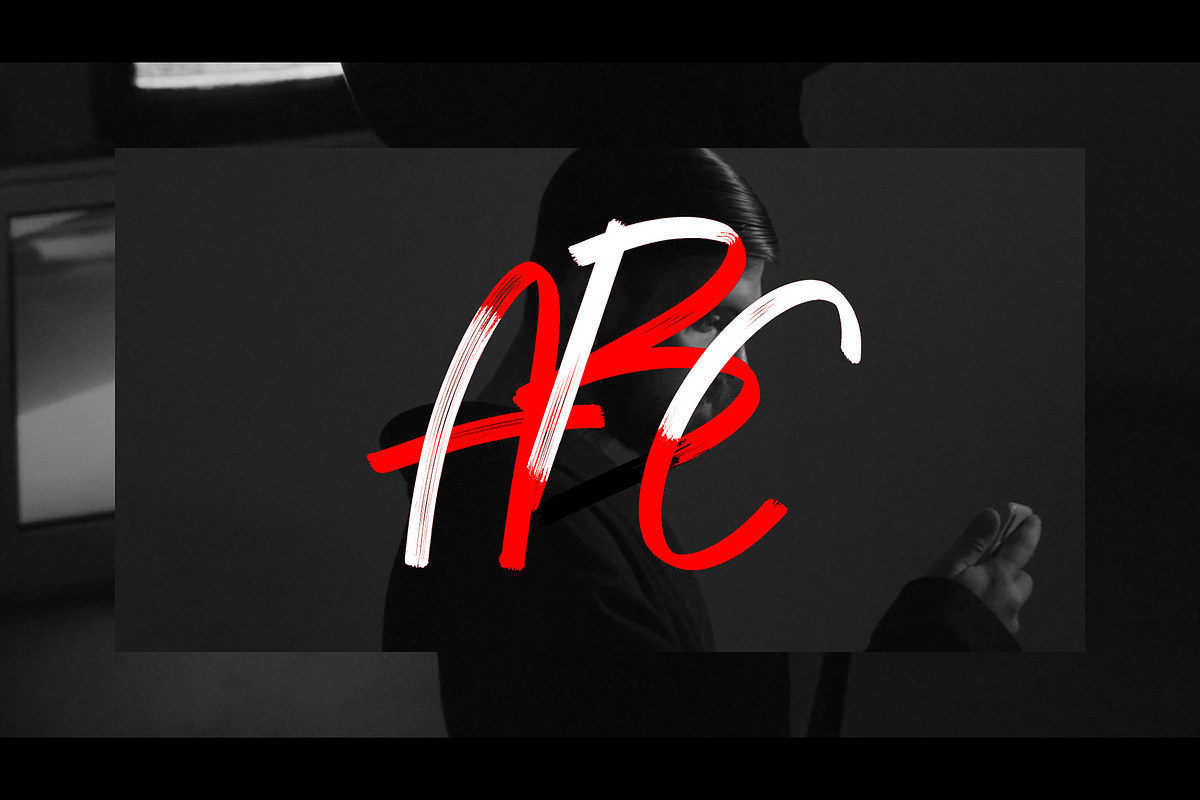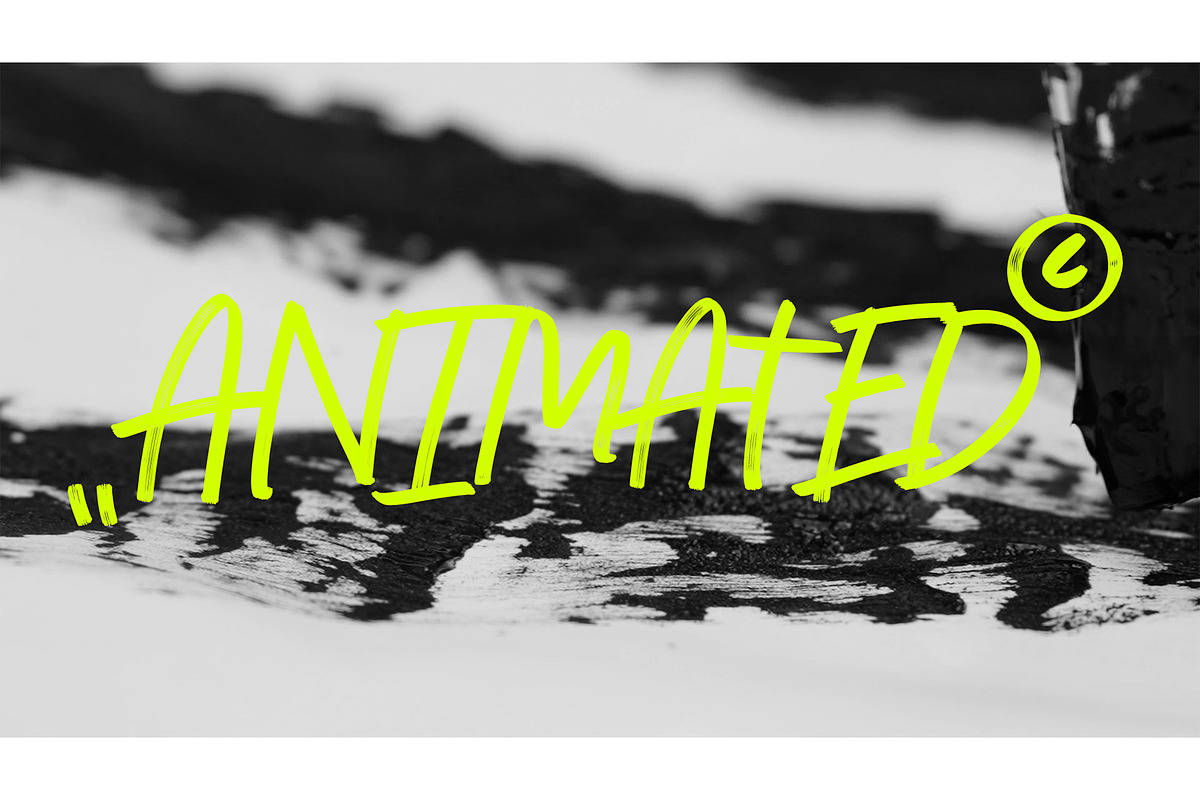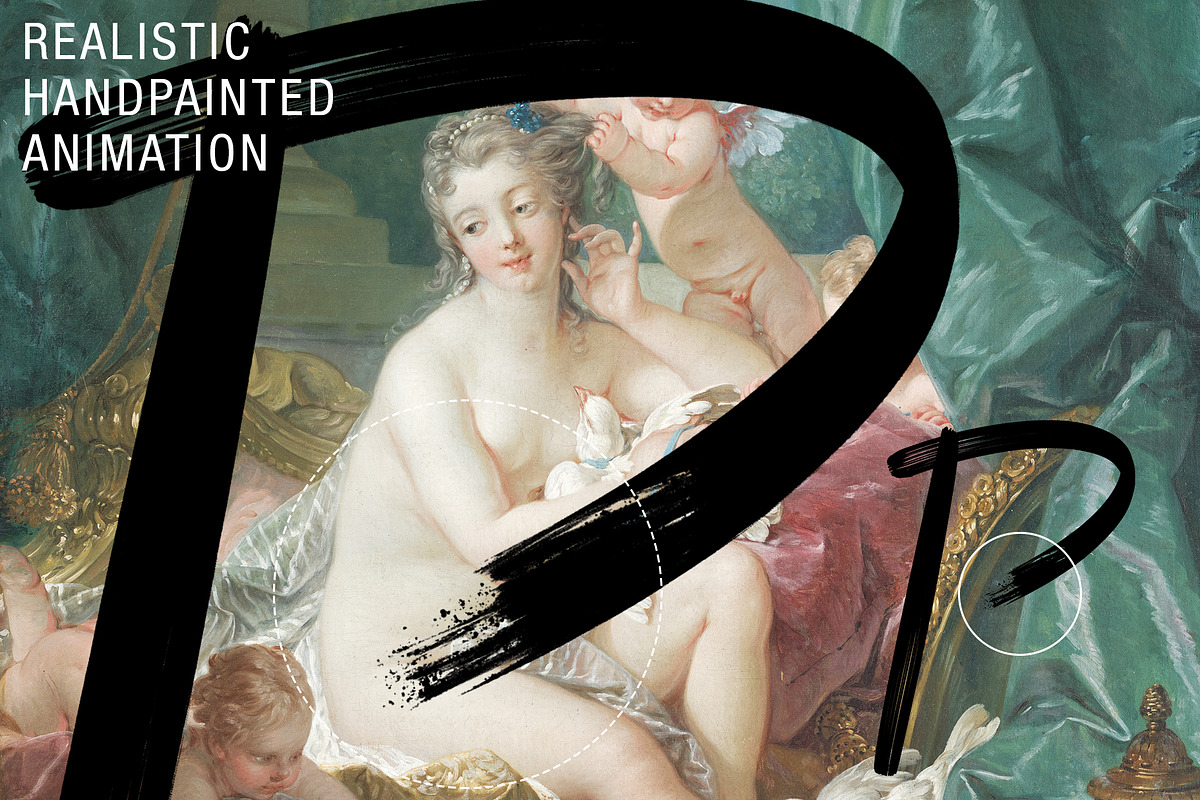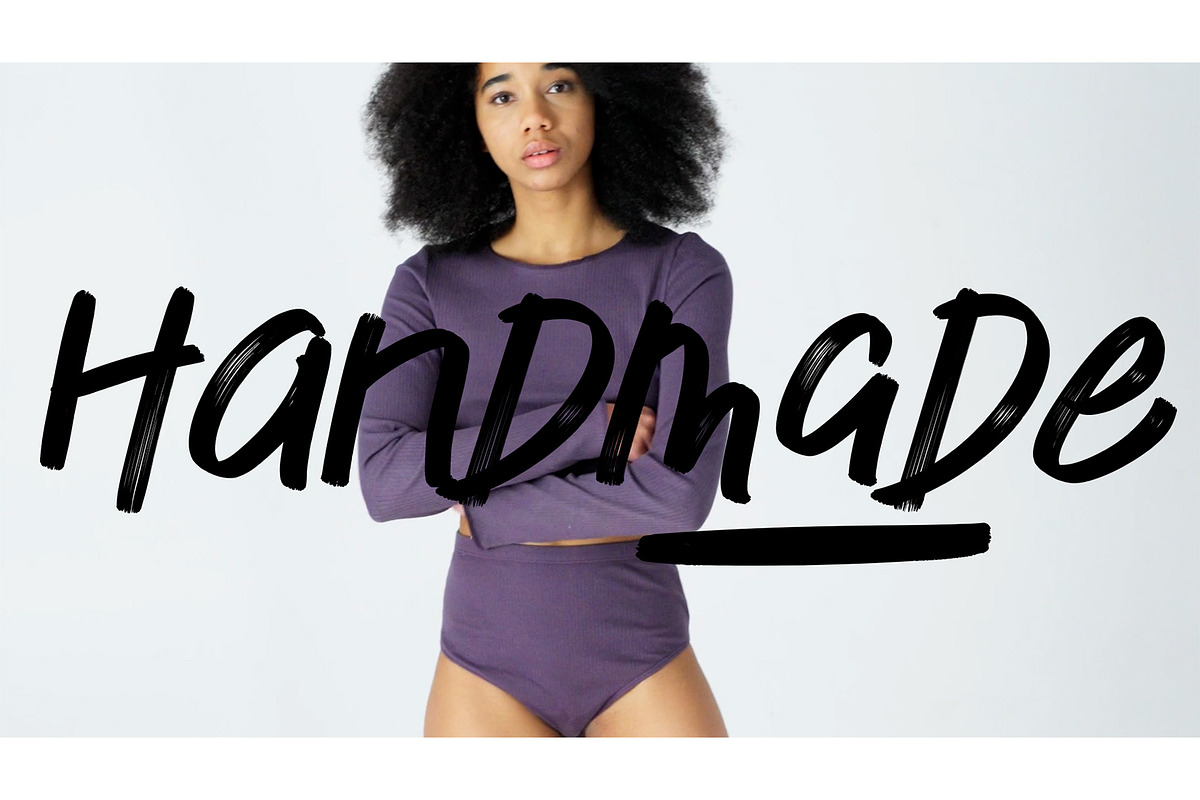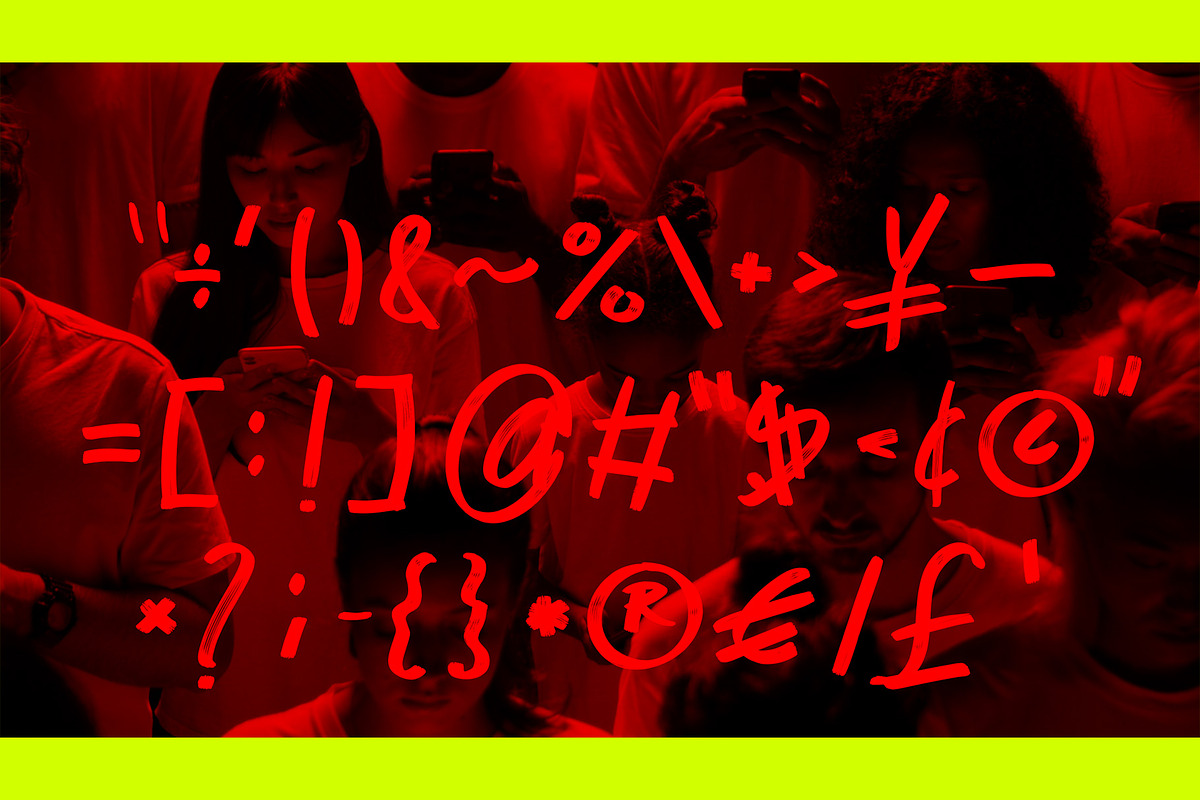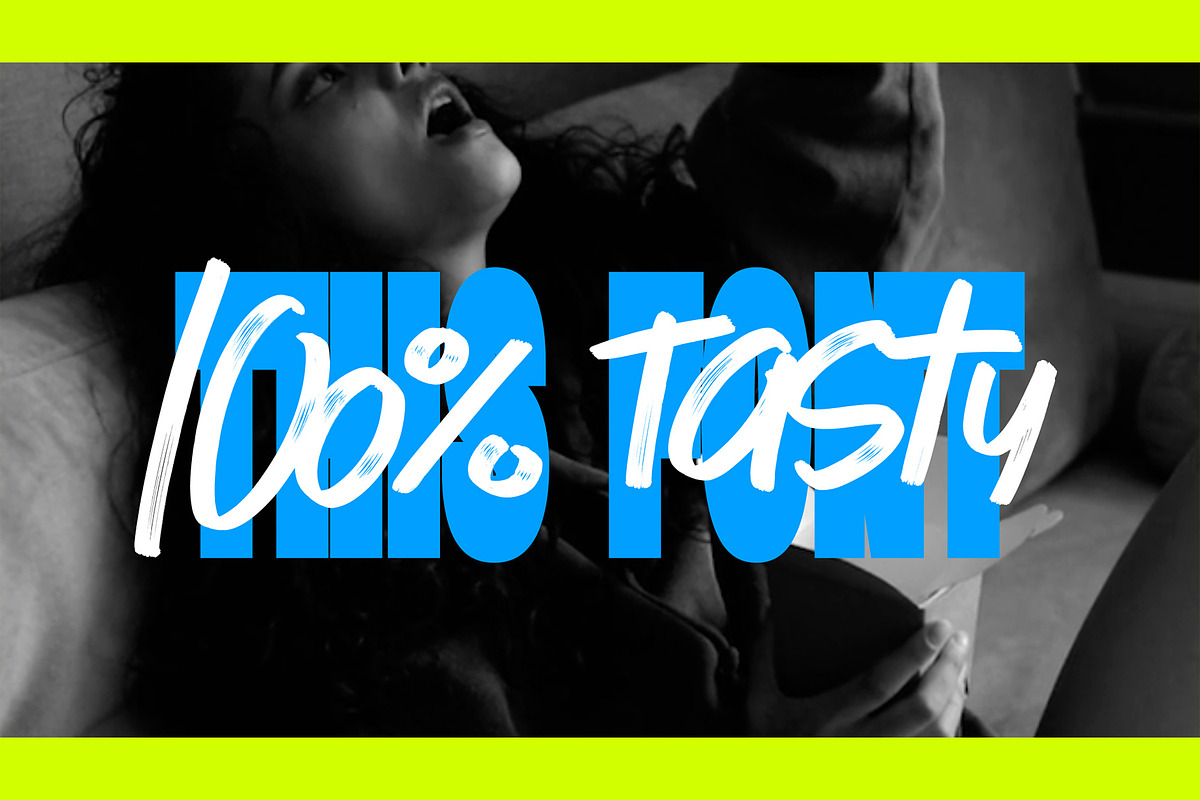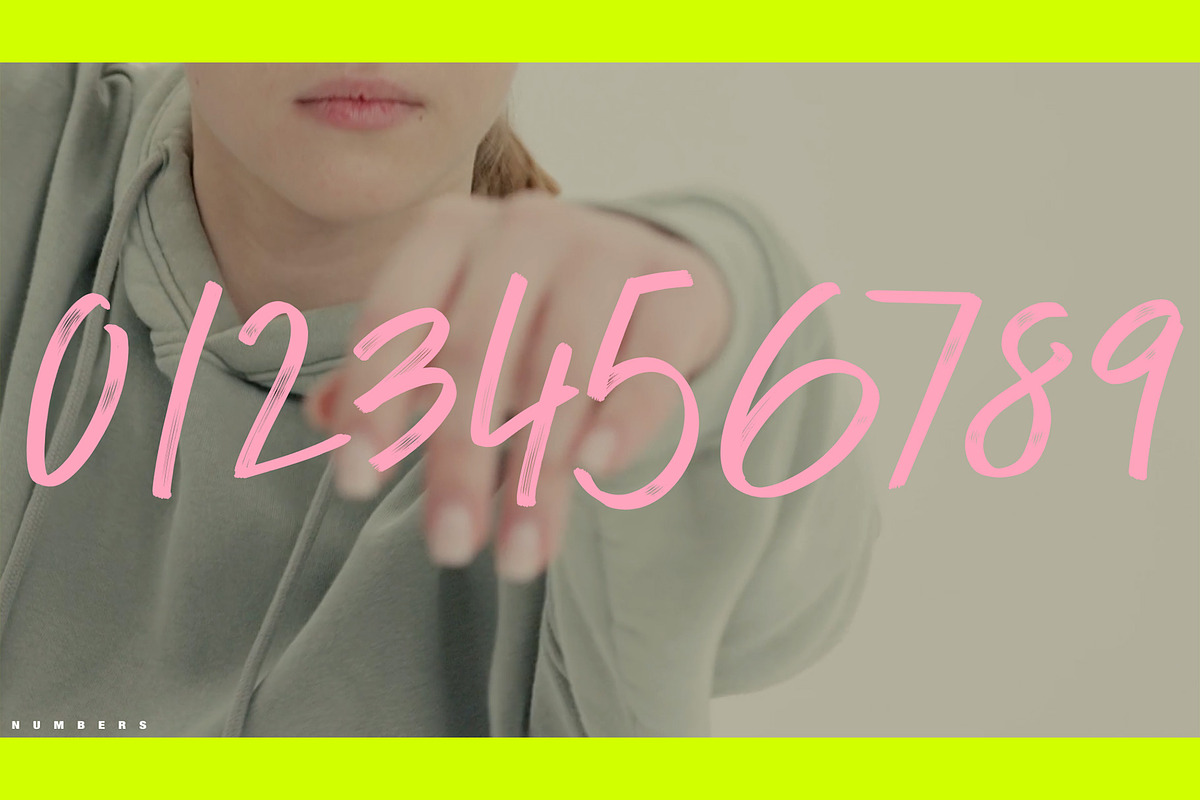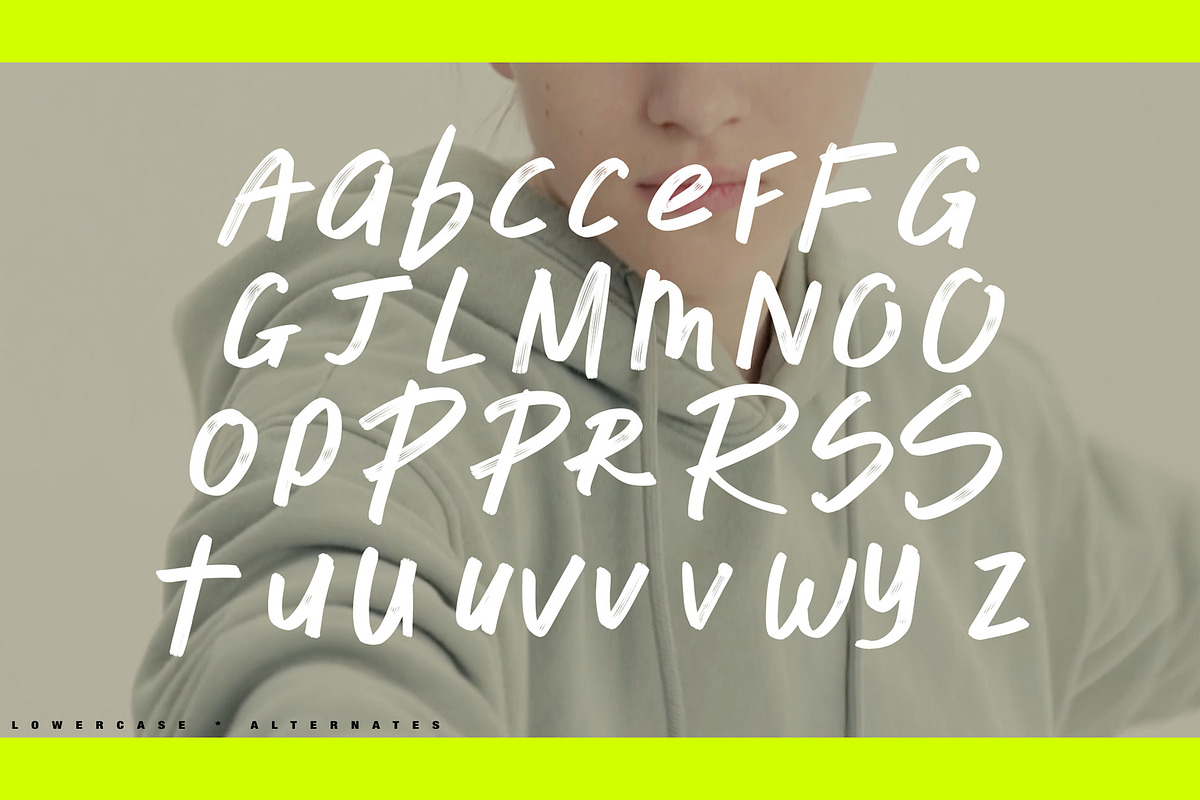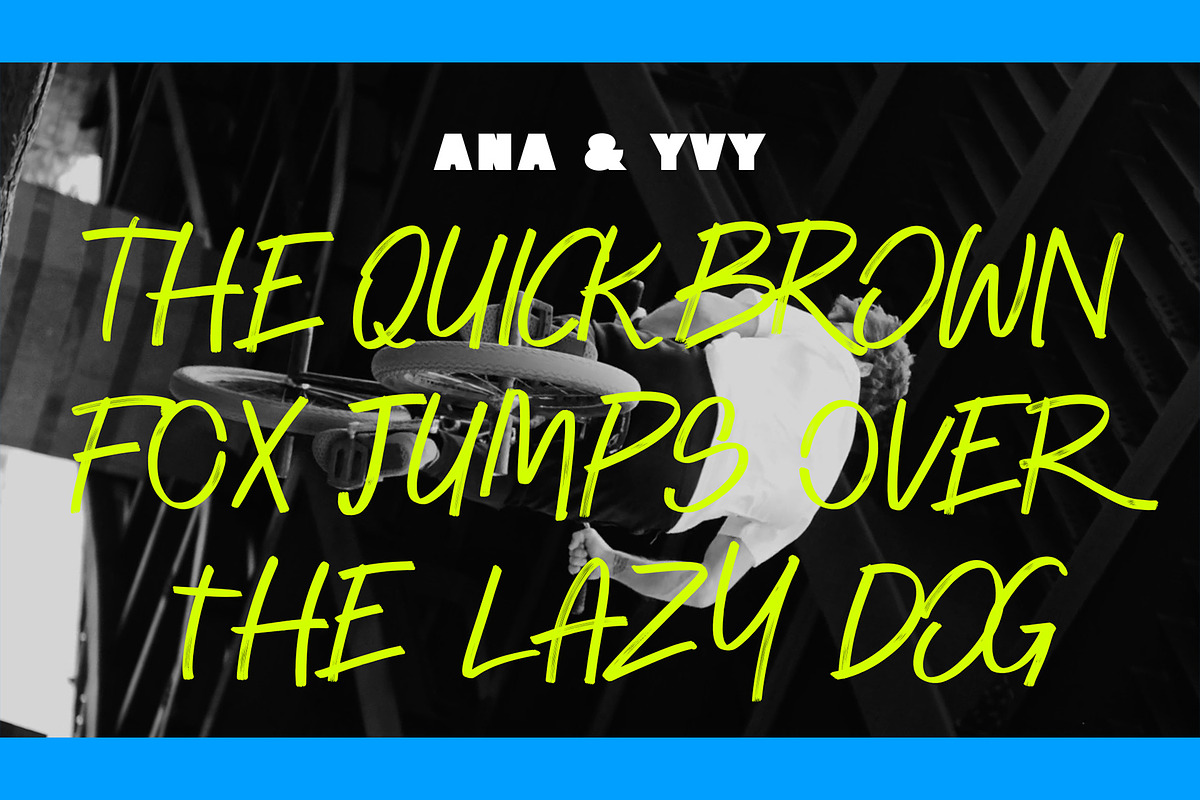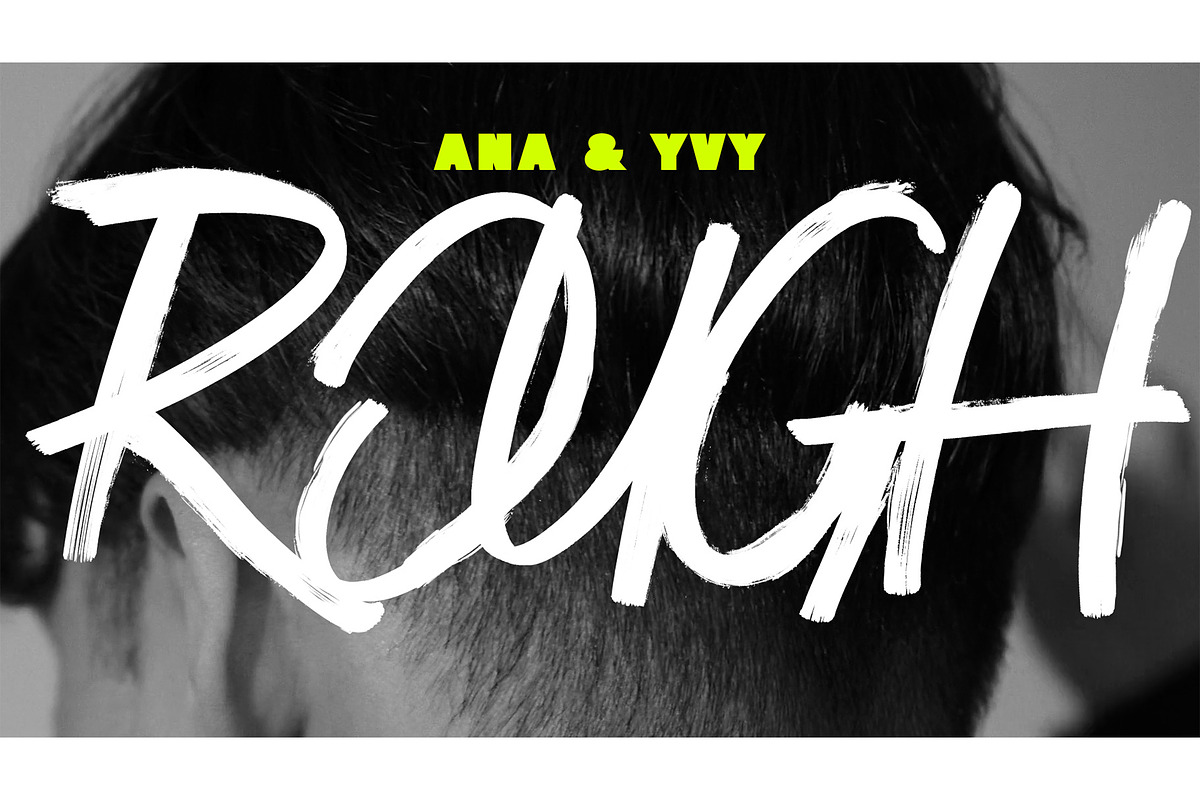
Animated Marker Font - BLACKDOT
Welcome to the BLACKDOT aesthetic - an animated rough and hand painted marker font.
The urban handmade style and the rough texture makes this perfect for fashion, sports and any dynamic design!
all lowercase, uppercase, alternates and signs as animated version
rough version only available as animation and PNG